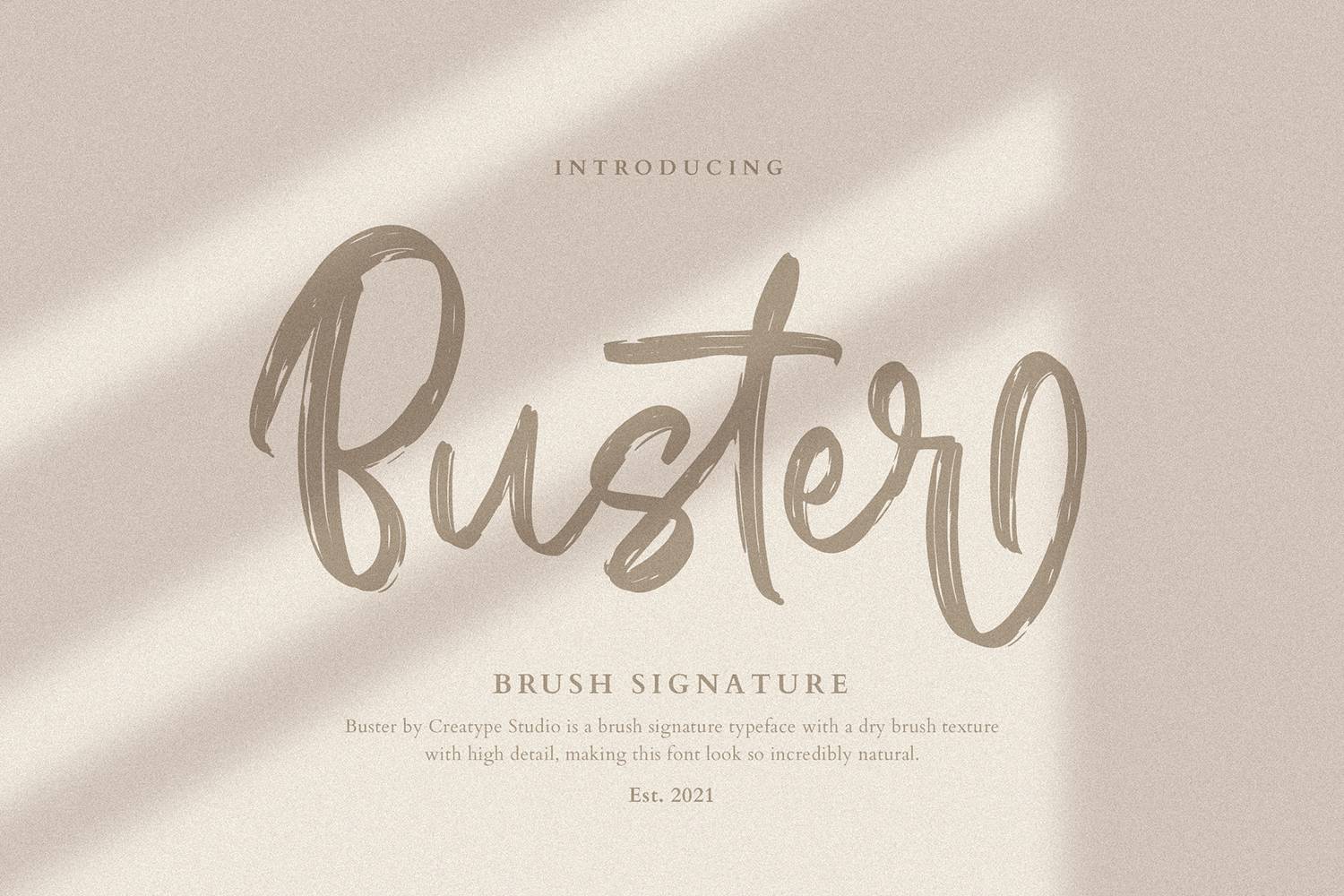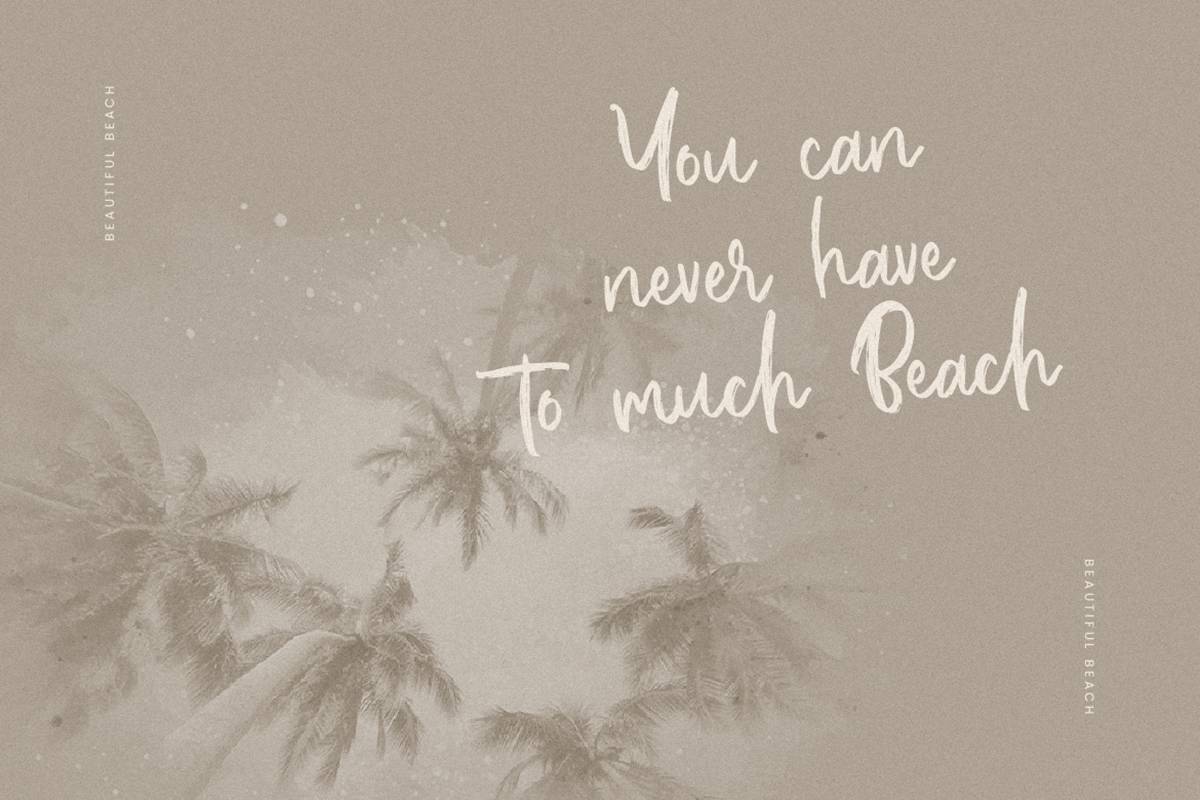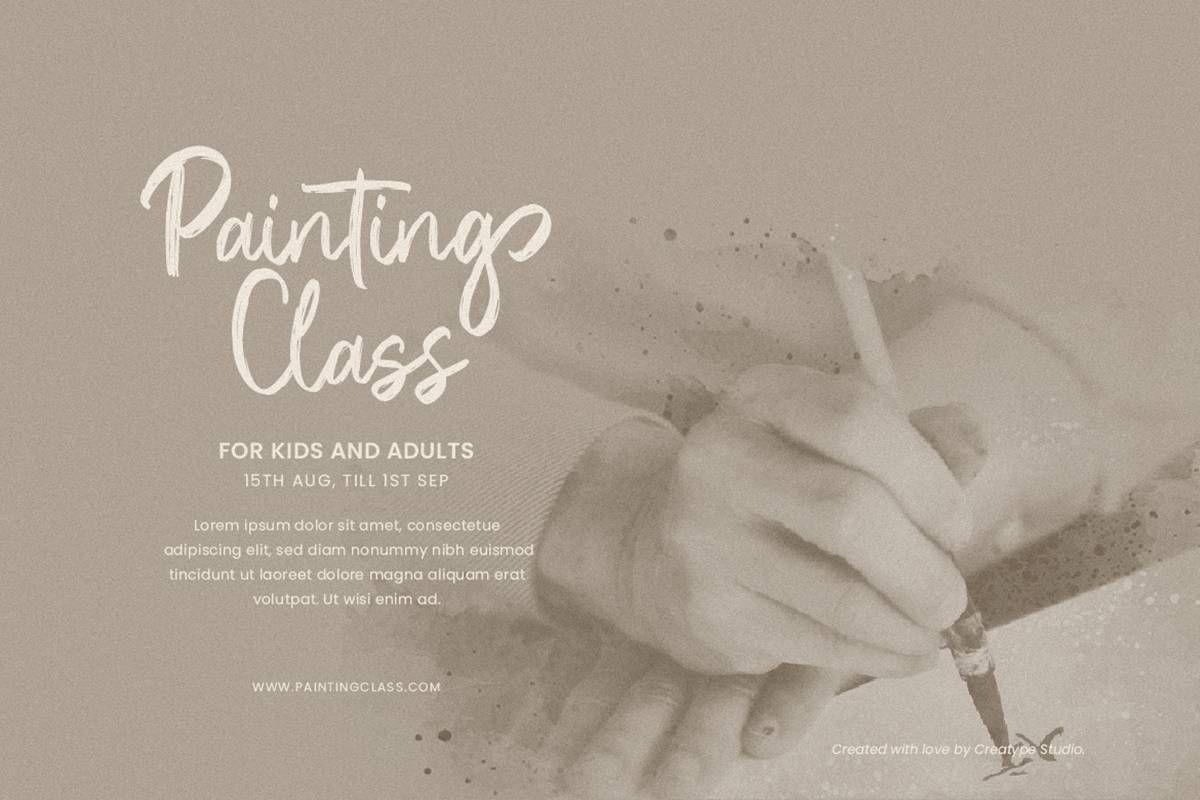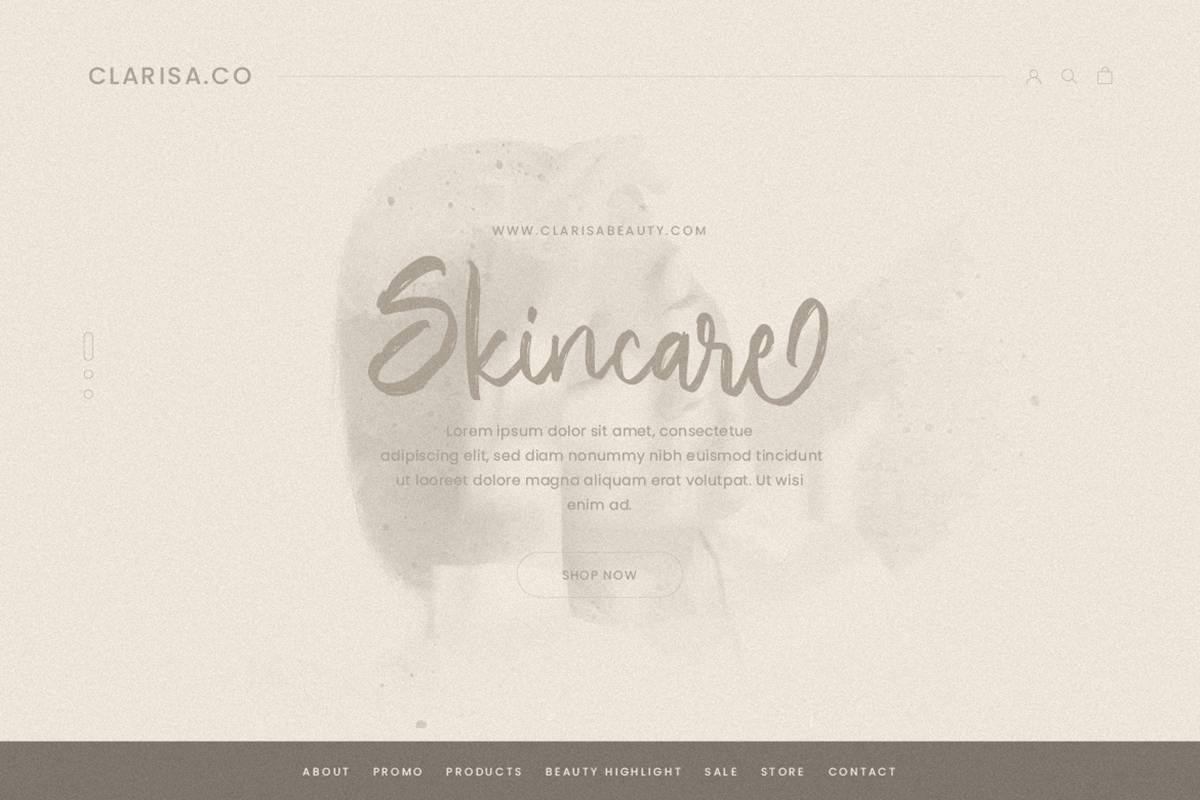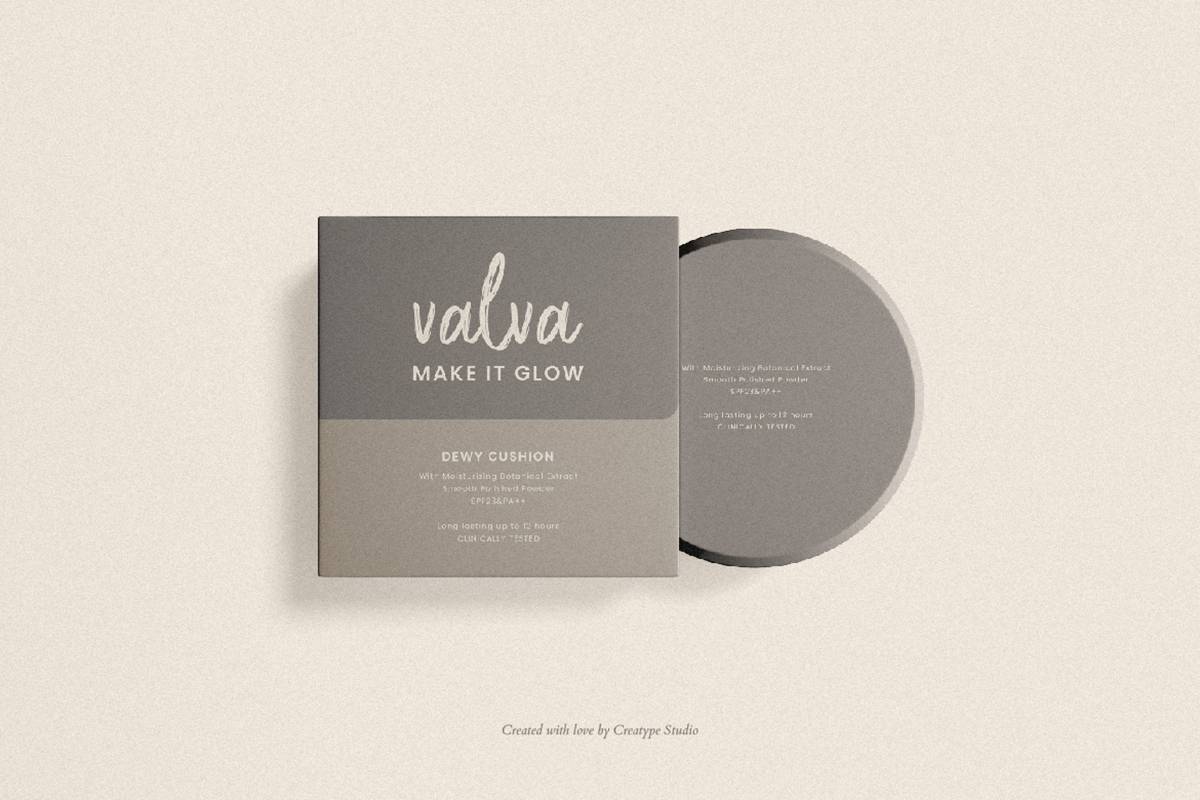
Buster Brush is a lively, handwritten brush font with a casual and artistic feel. Its uneven strokes and textured edges create an authentic, hand-painted look that brings warmth and personality to any design. Ideal for creative projects, branding, and invitations, it adds a personal, expressive touch that stands out with its playful and informal charm.